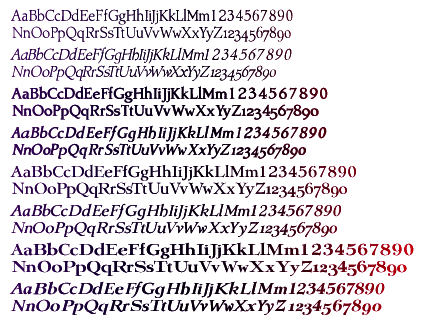
Bergsland Typography Releases New Font Families
Amitale Book and Amitale Wide are new typefaces for book design.
The Amitale (pronounced Ah-mi-tah’-lay) families are made up of eight new text fonts that are effortlessly readable and graceful. Originally built on a proof of what was labelled as an 18th Bible font called Minister, this new OpenType Pro family has been expanded to have Caps, lowercase, small caps, and figures to go with each of those character sets 123 456 789. There are many ligatures, a few swashes, fractions, numerators, denominators, and ordinals to infinity. This stylish beauty also works very well for display use.